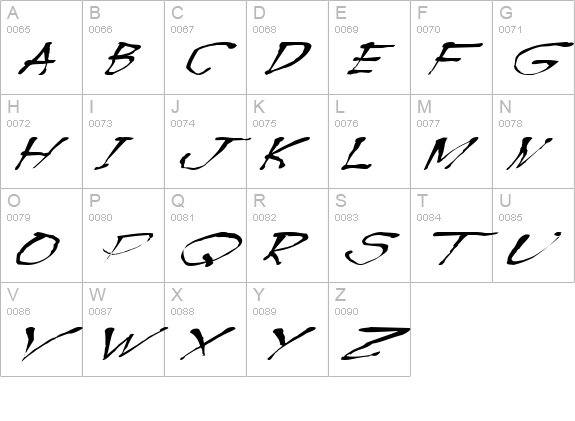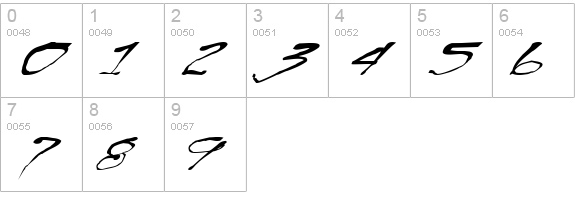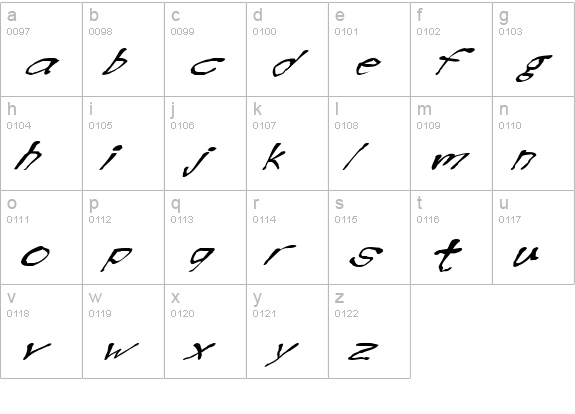
BlottoooWobbly Font Details
BlottoooWobbly font is a whimsical and playful typeface that adds a touch of fun and creativity to any design project. Its unique and quirky design makes it perfect for headlines, posters, logos, and more. The irregular and wobbly letterforms give it a handcrafted and artistic feel, making it stand out from other fonts. Best of all, BlottoooWobbly font is completely free to download at FontsMarket.com. Whether you're a designer looking to add a touch of whimsy to your projects or just someone who appreciates unique and eye-catching typography, BlottoooWobbly font is a must-have addition to your font collection. Download it today and let your creativity run wild!